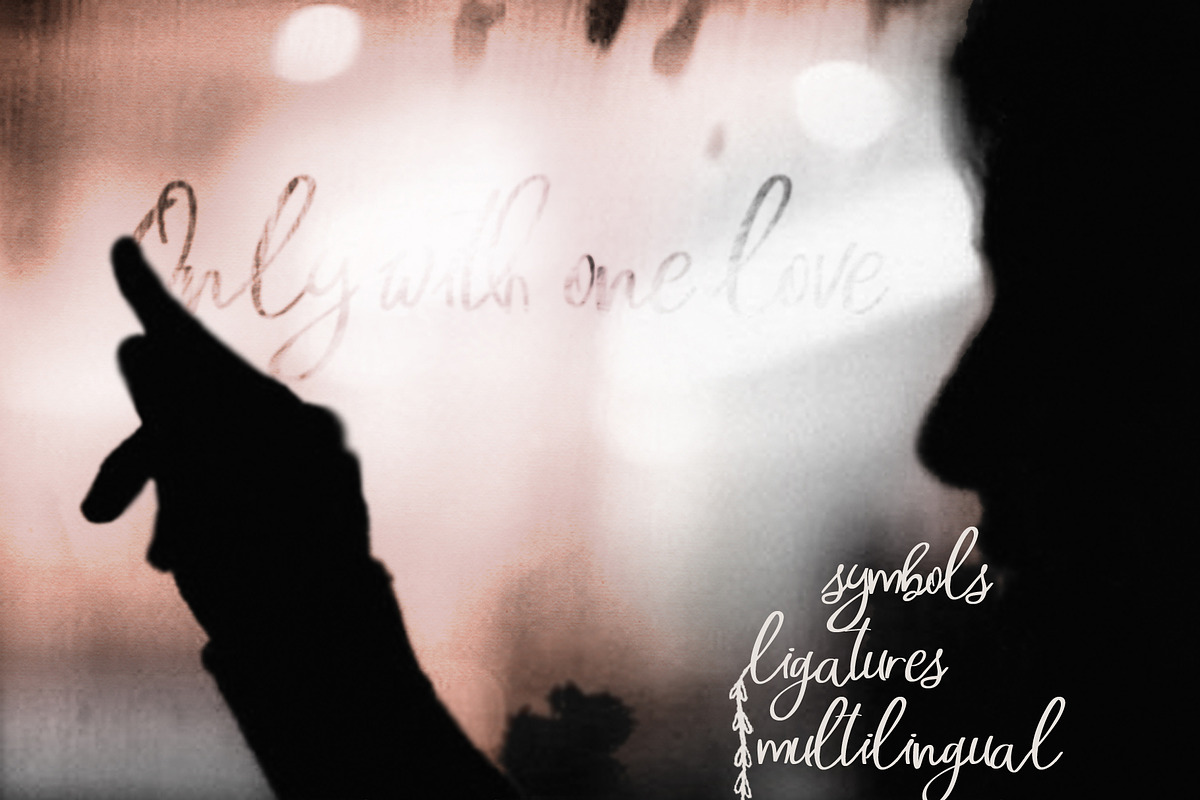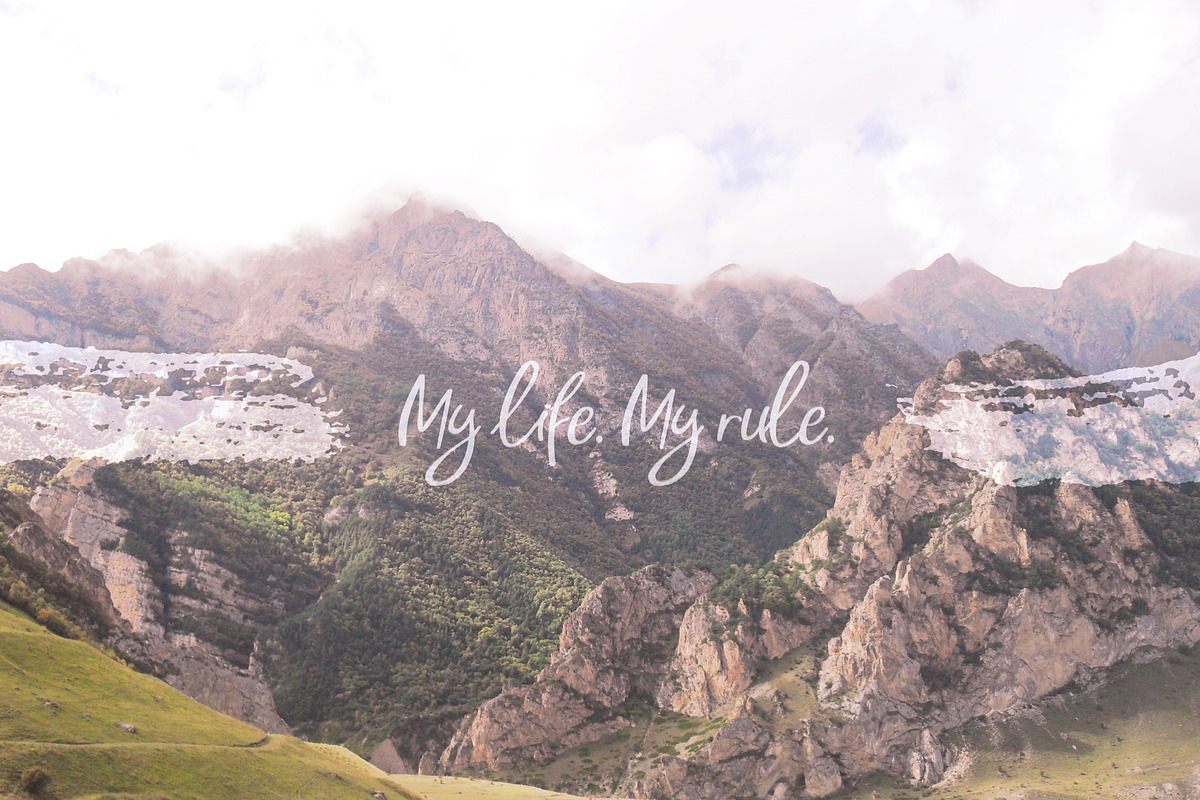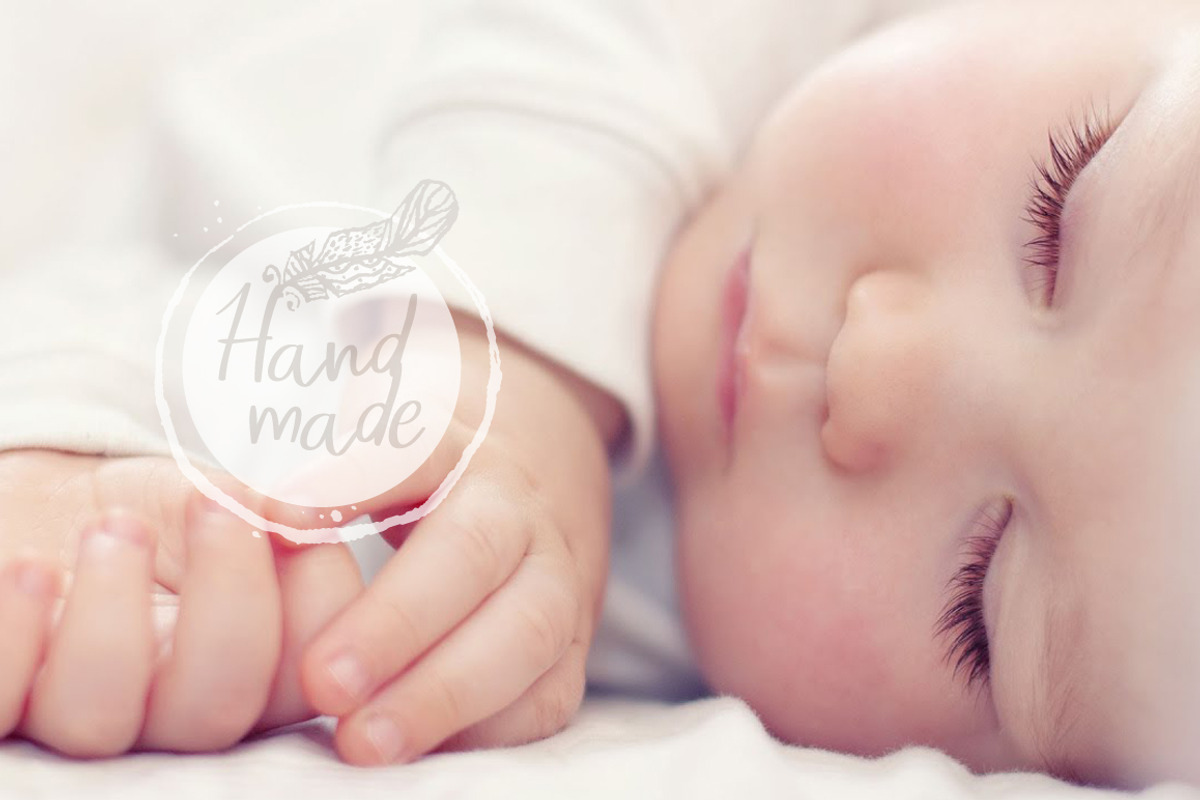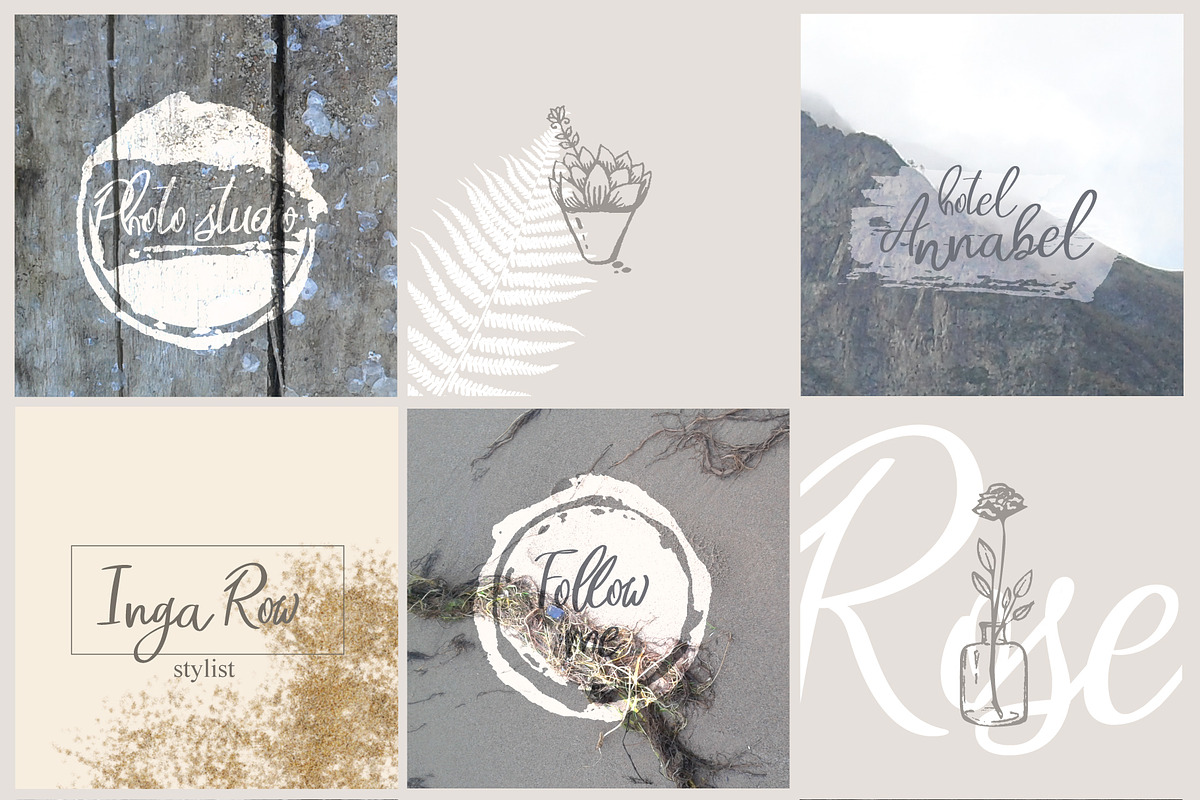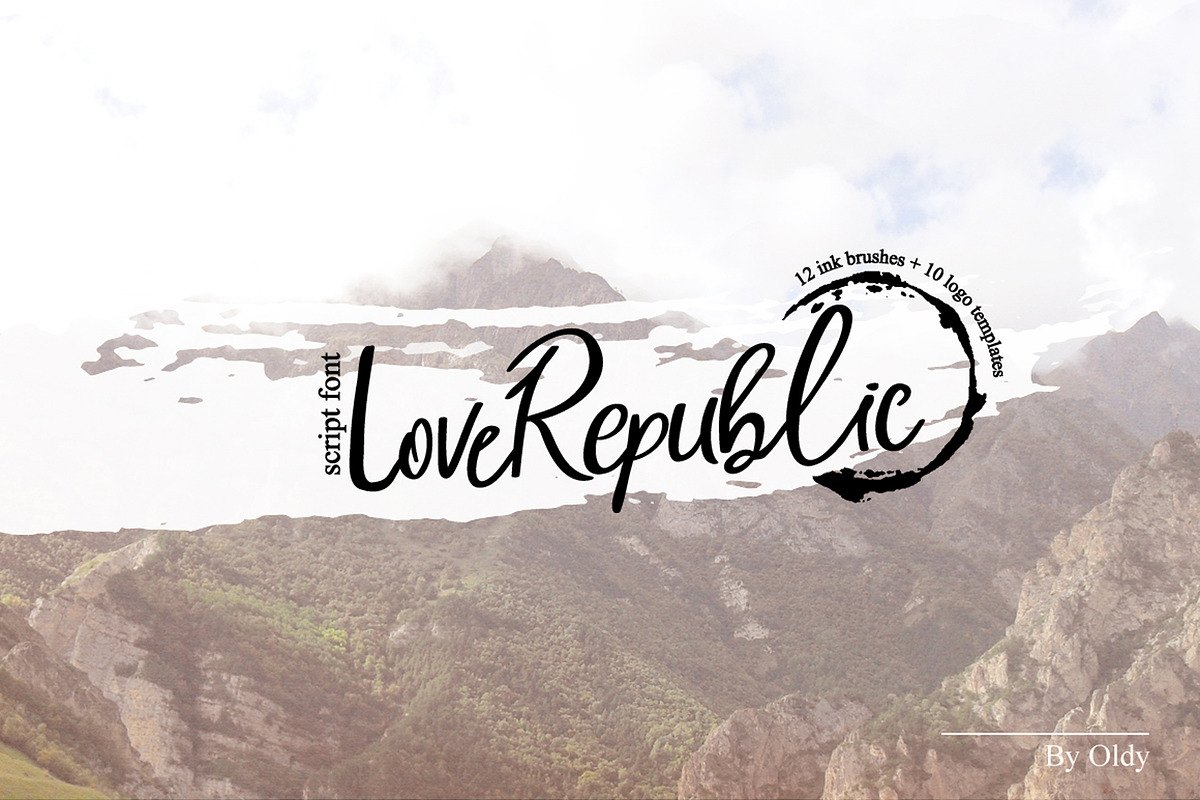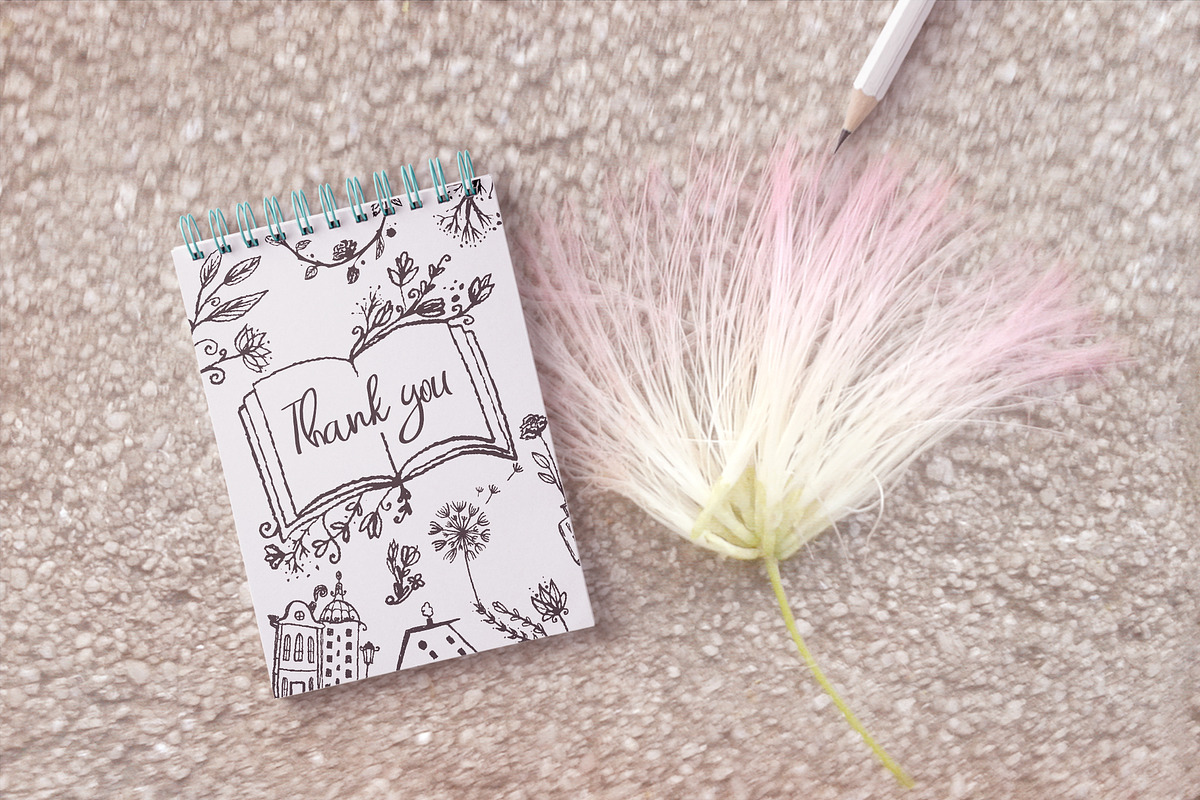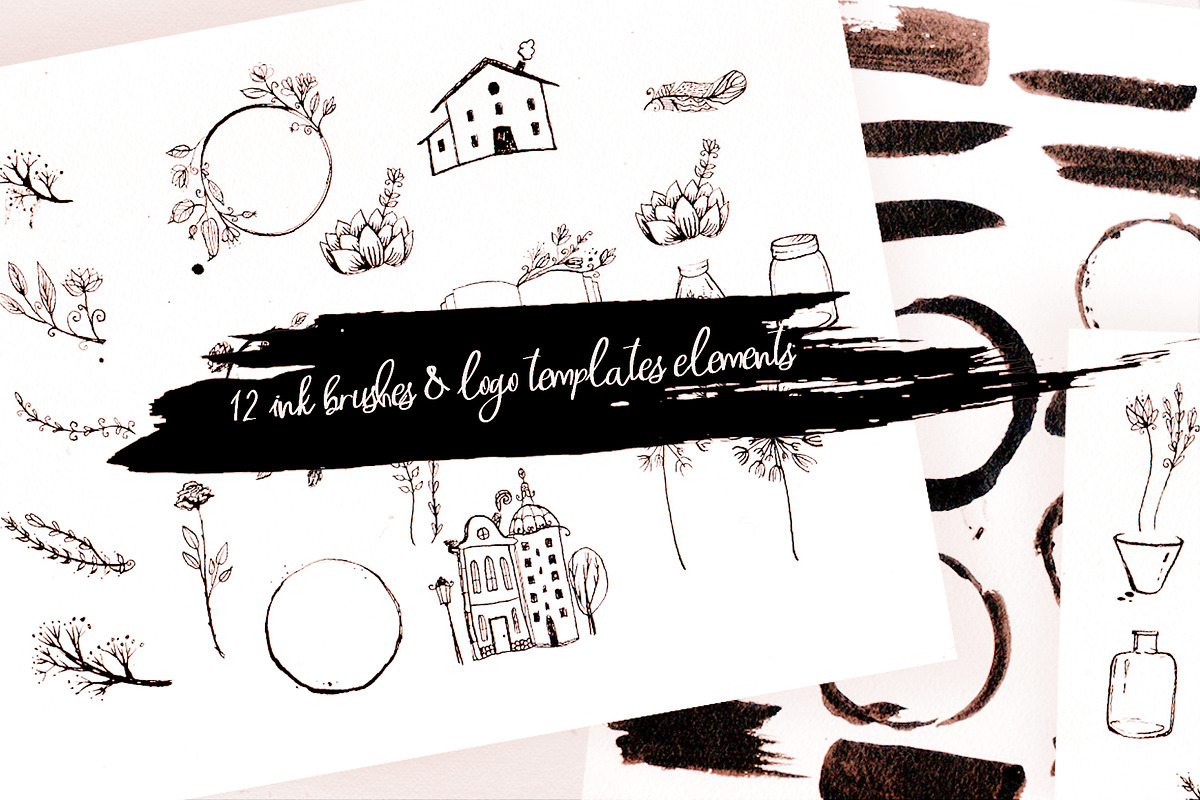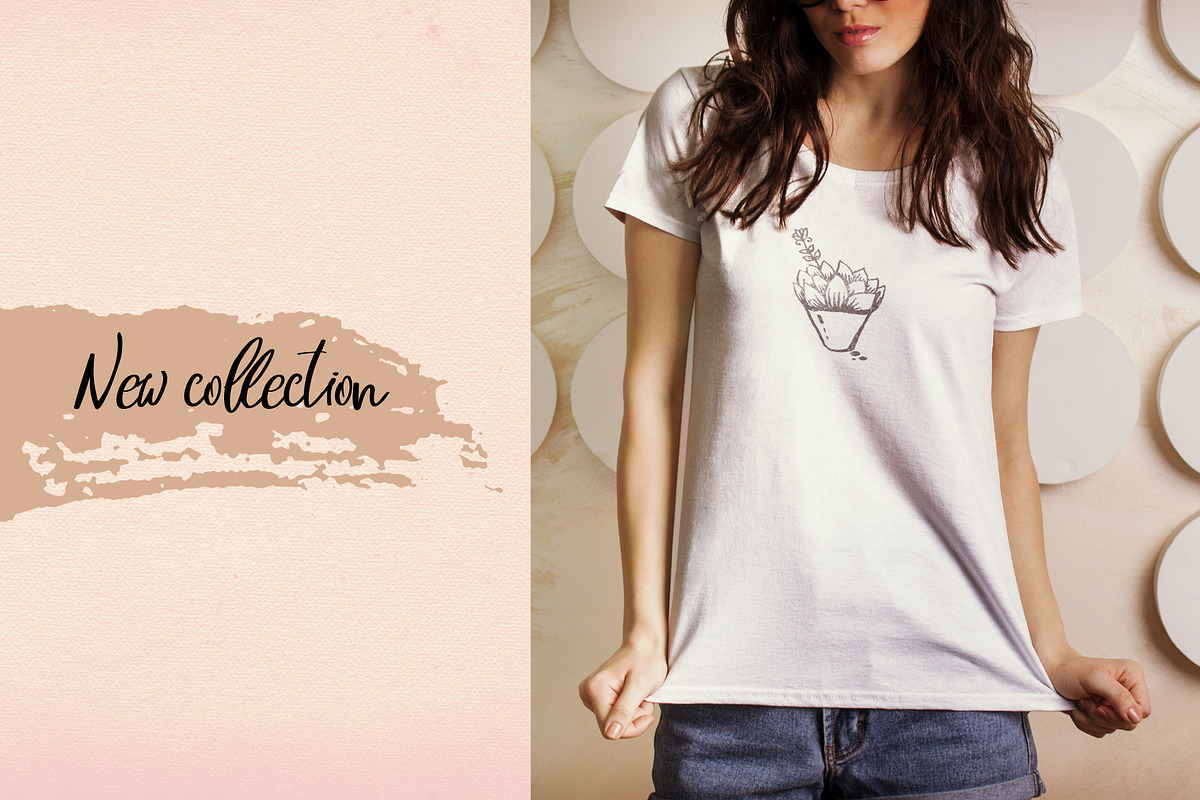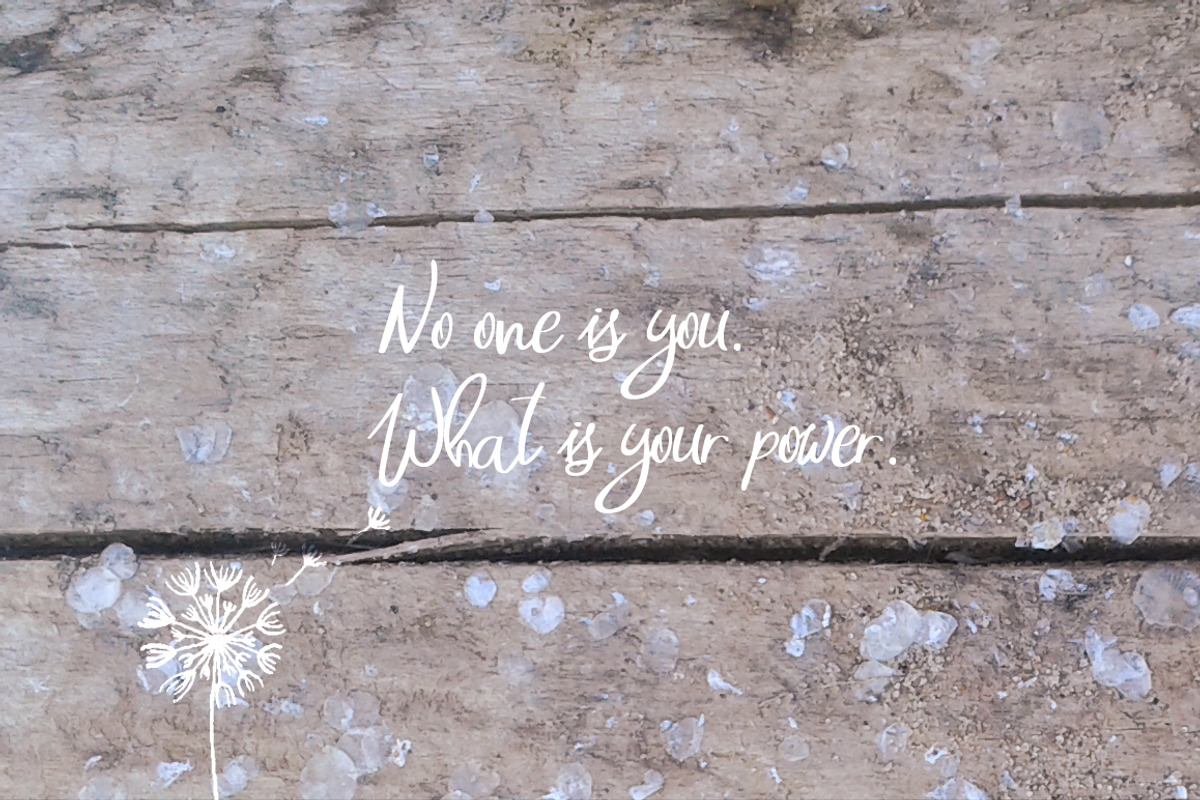
LoveRepublic/font+logo templates
Introducing a new font-inspiration of Love Republic. He was born under the impression of self-sufficient harmony of wild mountains and tenderness of rivers. He's playful and confident. Love Republic font is exactly what you need to create a logo with a unique character. You will also be able to use this set to design your pages on the Internet, to create cards, invitations and signatures.